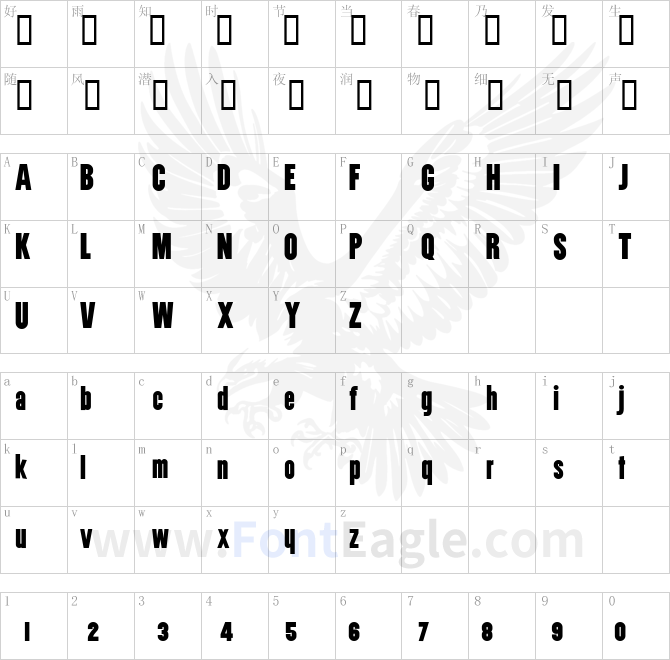
Utility-BoldCondensed is a great font, widely used in graphic design, single-page menu design, poster design and other fields, and is deeply loved by designers.Utility-BoldCondensed download.